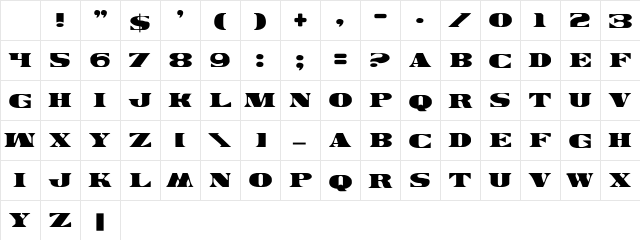
Legal Tender Regular Free Font
Legal Tender Regular
Complete Legal Tender Regular glyph index. Displaying only characters natively supported by Legal Tender Regular font.
Design Context for Legal Tender
Legal Tender is a composed and adaptable typeface that performs quietly and consistently across a wide range of design contexts.
Pro Tip: Use Legal Tender in both headline and body roles to test its range before committing to a single application.